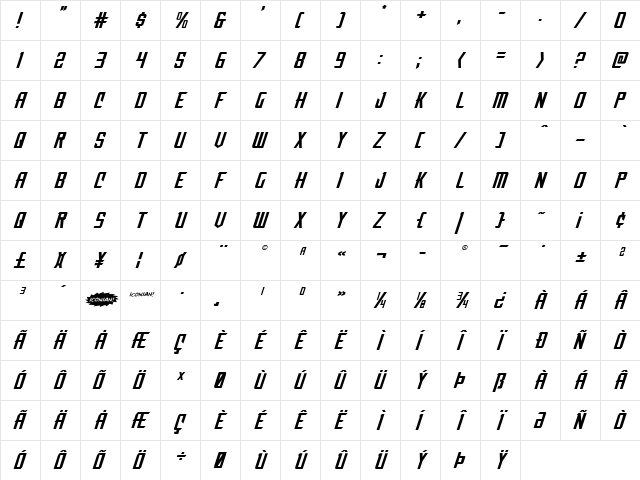
Nemesis Enforcer Expanded Italic Expanded Italic
Design Context for Nemesis Enforcer Expanded Italic Typeface
Nemesis Enforcer Expanded Italic has the bold swagger of sports branding: strong, assertive letterforms designed to dominate headlines and jerseys alike. The dynamic lean of this cut emphasises speed and emphasis in any layout.
A natural choice for gym brands, fantasy sports, jersey lettering, and action-driven headlines.
Pro Tip: Use Nemesis Enforcer Expanded Italic in all-caps headlines where its athletic energy can fully express itself. Pair with a solid, simple sans for supporting text.